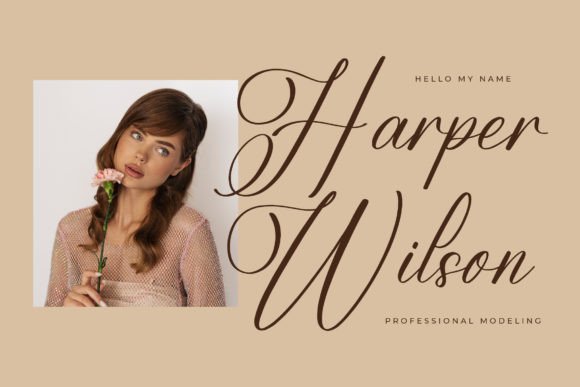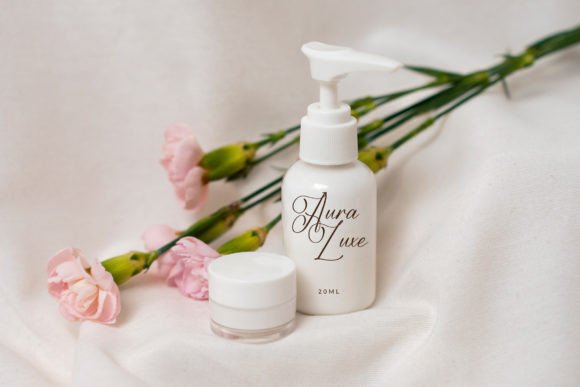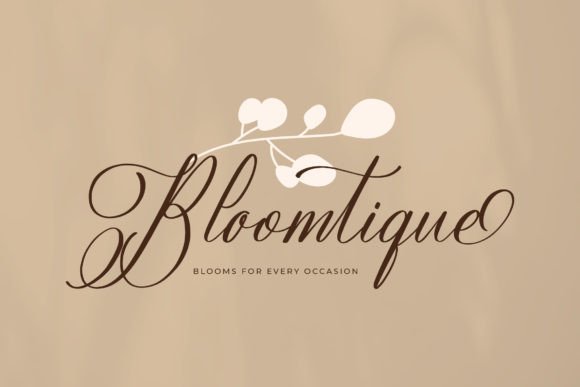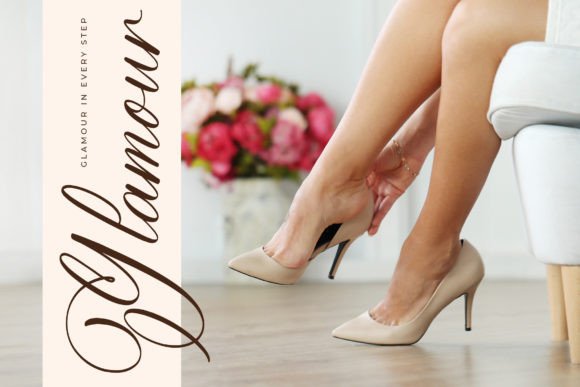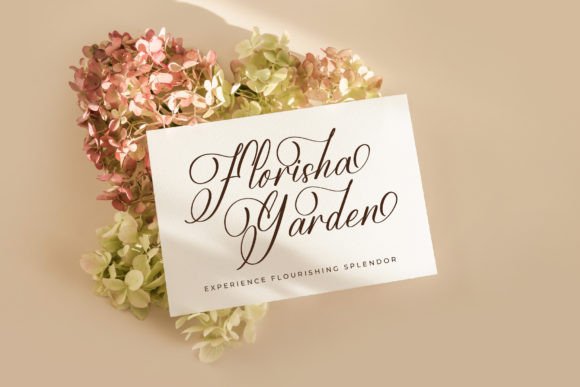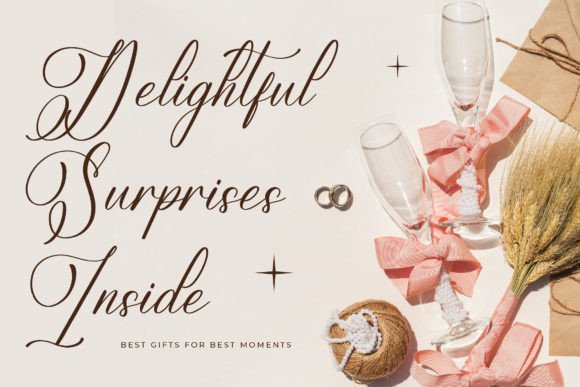
A Moment of Creative Bliss: Unveiling the Beauty of Luxury Script
Have you ever found yourself in the midst of a creative project, and the perfect font suddenly pops into your mind, elevating the entire design to new heights? For many designers, this is the moment of truth, where the right font can make all the difference between a good design and a great one. For those who crave that extra touch of elegance and sophistication, the Dahlianti Angelina Font is here to bring your luxury projects to life.
This beautiful script font from Letterena is designed to make a statement, perfect for any project that demands refinement and poise. Whether it’s a logo, branding project, or a special event invitation, Dahlianti Angelina Font adds a touch of luxury and sophistication that’s hard to resist. As a valuable addition to any designer’s toolkit, this font is sure to inspire creativity and elevate your designs to new levels of beauty.
Dahlianti Angelina Font Key Features
- Font Style: Script, Calligraphy
- Unique Characteristics: Elegant, cursive design with delicate flourishes and subtle texture, suitable for wedding invitations, greeting cards, and other creative projects
- Language Support: Multilingual support, including Latin, Cyrillic, and Greek alphabets
Dahlianti Angelina Font Review
Overall, I have mixed feelings about the Dahlianti Angelina font. While it has its charm, it also has some limitations that make it less versatile than other fonts.
- Unique and elegant design, perfect for adding a touch of sophistication to designs
- Works well for titles and headings due to its bold and striking appearance
- Supports a wide range of languages, making it a great choice for international designs
- Not ideal for body text, as it can be difficult to read due to its unique and intricate design
- Lack of italics and other stylistic variations can limit its use in certain design scenarios
- May not be the best choice for digital designs, as it can be pixelated and lose its charm
Overall, the Dahlianti Angelina font is a great choice for designers looking to add a touch of elegance and sophistication to their designs. However, it’s not a font for every occasion, and its limitations should be taken into consideration when making design decisions.
Tip: Use the Dahlianti Angelina font to add a touch of elegance to your wedding invitations, menus, or other formal designs.
Tip: Use the Dahlianti Angelina font to create beautiful typography for your branding, packaging, or advertising materials.
Tip: Use the Dahlianti Angelina font to add a touch of sophistication to your presentations, reports, or documents.
The Dahlianti Angelina font is perfect for:
- Formal event materials (menus, programs, etc.)
- Branding and packaging materials
Alternatives to Dahlianti Angelina Font
The Great Vibes Font is a beautiful, elegant script font that is perfect for creating a whimsical and romantic atmosphere. It is ideal for use in wedding invitations, greeting cards, and other special occasions where a touch of sophistication is required. Great Vibes Font is more ornate and has a more delicate feel compared to Dahlianti Angelina Font.
The Alex Brush Font is a stunning, hand-painted script font that is perfect for creating a unique and artistic look. It is ideal for use in branding, advertising, and editorial design where a touch of elegance and sophistication is required. Alex Brush Font has a more organic and textured feel compared to Dahlianti Angelina Font, making it perfect for designers who want to add a personal touch to their work.
The Carolyna Pro Font is a modern, elegant script font that is perfect for creating a sleek and sophisticated look. It is ideal for use in fashion branding, advertising, and editorial design where a touch of luxury and glamour is required. Carolyna Pro Font has a more refined and polished feel compared to Dahlianti Angelina Font, making it perfect for designers who want to create a high-end look.